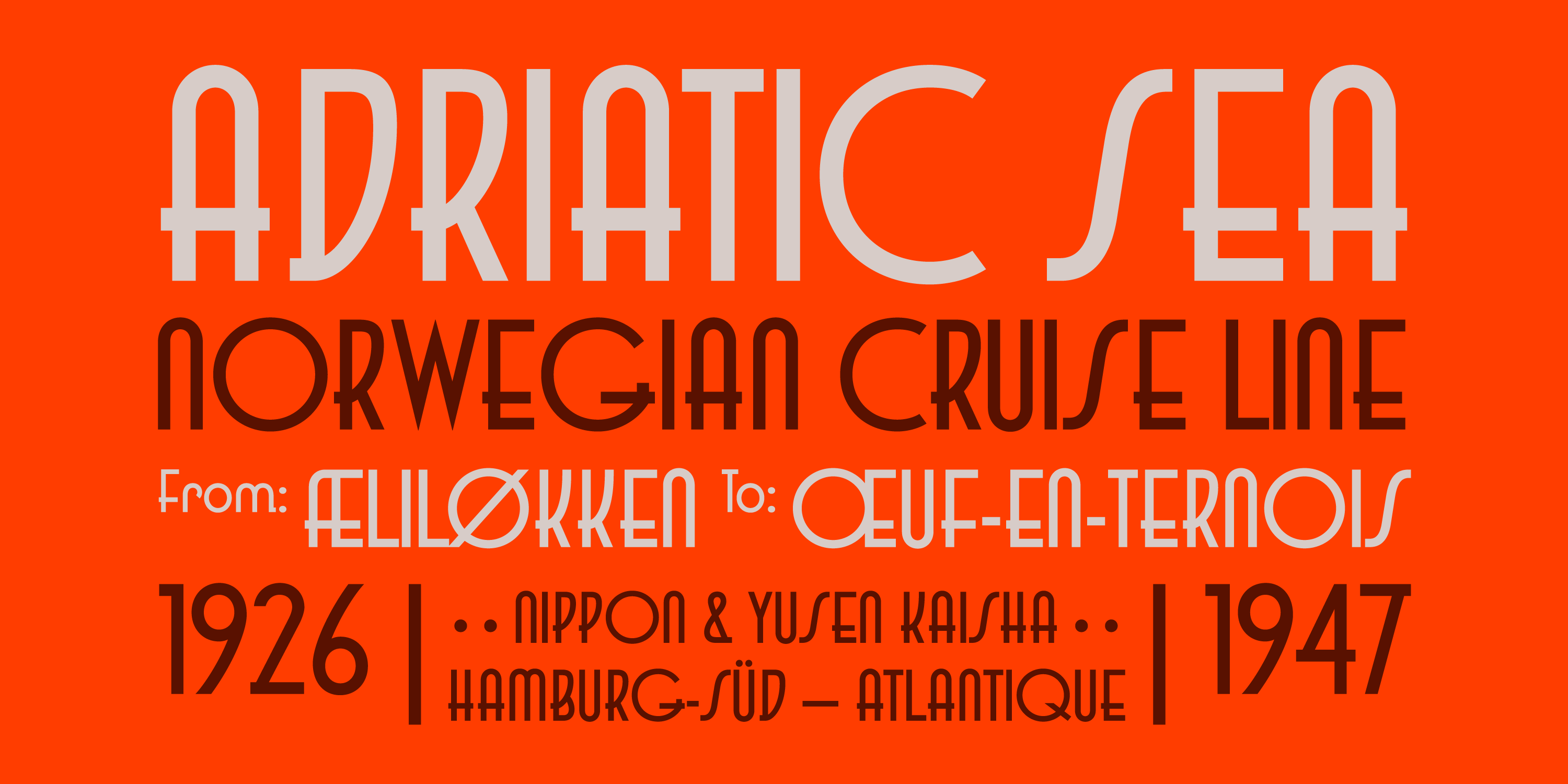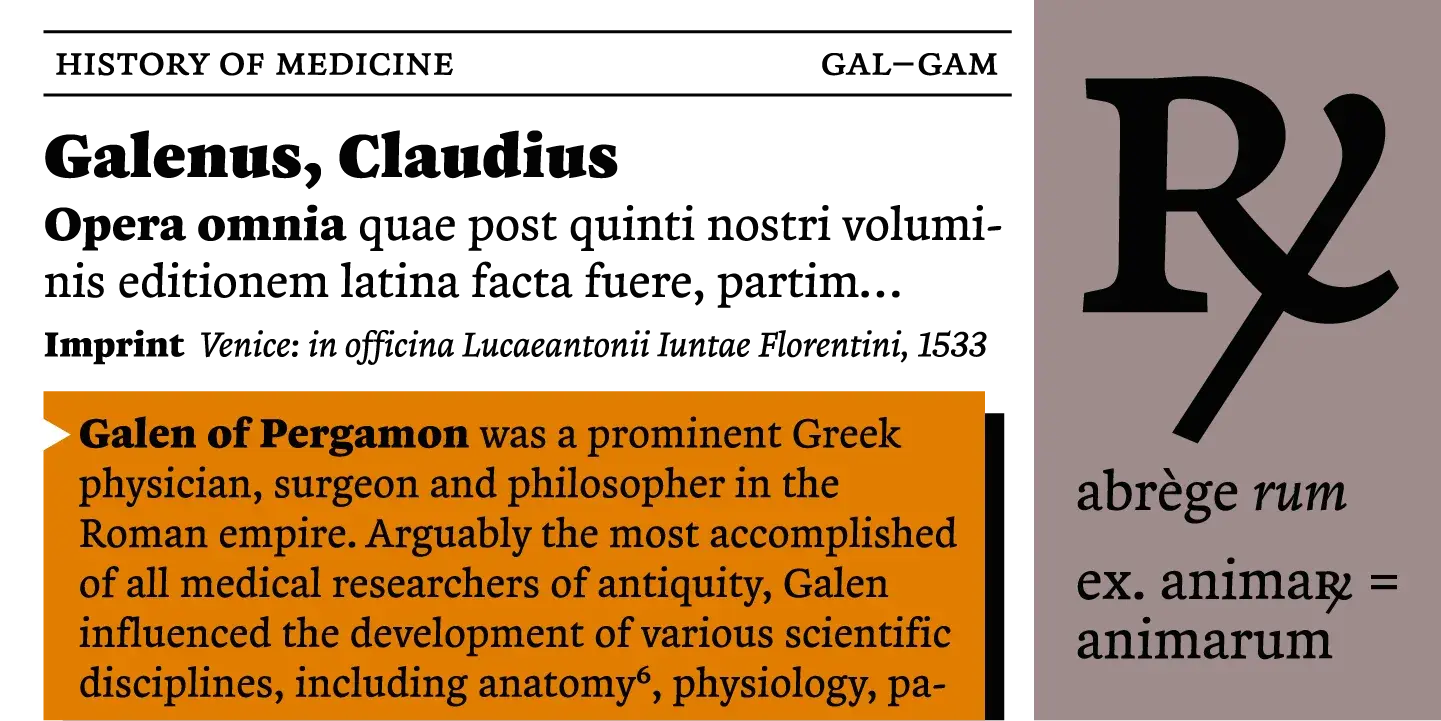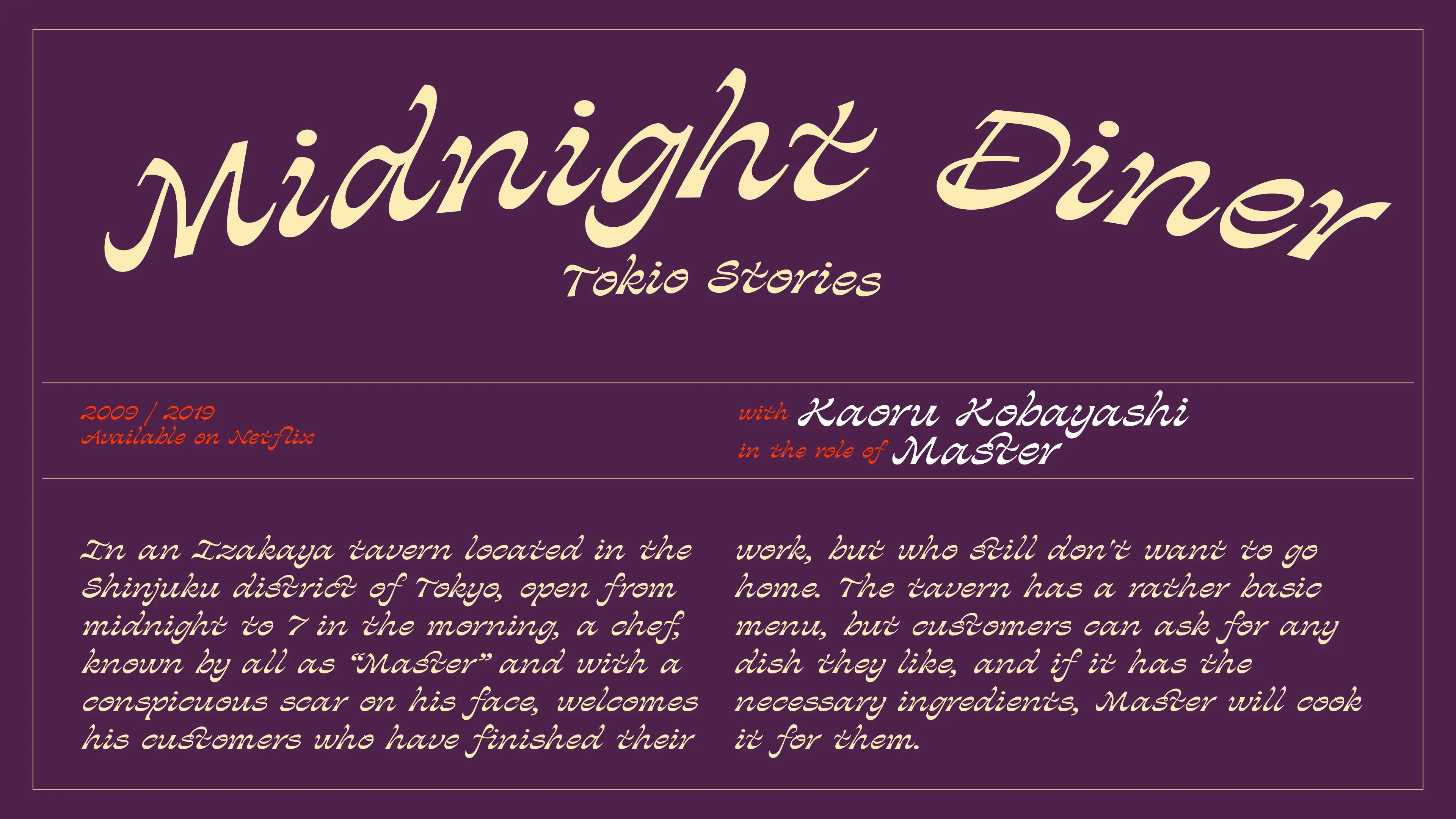
I’m delighted that CAST is joining Type Network. Let’s start with some quick introductions and each of your roles at CAST.
Valentina Casali: I’m a project manager and type designer. I’m happiest when I’m drawing script fonts, but I am also learning to do font engineering.
Giulio Galli: I'm mostly a type designer. Together with Riccardo I handle reviews for retail families, both internal and from outside designers.
Riccardo Olocco: I'm the president of CAST—mostly because I’m one of the elder members and a co-founder. I co-lead reviews with Giulio, pitch in on communications, and my main background is research in the history of type. I publish, and I try to mix research and contemporary practice.
Designing the Type Revivals, the book you wrote with Michele Patanè, is one of my favorites! For people new to CAST, what makes a co-op foundry different?
RO: The short version: we decide together. Not symbolically—really together. That means more meetings, more persuasion, more time… and a much stronger sense that the work is ours. There’s minimal hierarchy beyond basic bureaucracy and the review role Giulio and I fill. We vote when we must. It’s slower sometimes, but it changes your attitude toward the work in a good way.
GG: Also, most of us could work independently. The co-op lets us stitch different strengths into something bigger than any single person—without pretending we’re all the same.
CAST is an independent Italian digital type foundry, Cooperativa Anonima Servizi Tipografici, established as a cooperative in Bolzano, Italy.
How did each of you end up at CAST?
GG: I joined around 2017 or 2018 while studying in Urbino. Luciano was my teacher; I got pulled into a couple projects and… that was it. First real job, great people… I’m still here!
VC: I joined in summer 2023 after Typographics. I’d co-run Sunday Büro with my husband, doing editorial lettering for clients in Italy and the U.S. I wanted to get serious about type, especially scripts. CAST first needed help with accounting—glamorous!—then they slid a custom project into my lap. Riccardo reviewed, Daniele sat with me for hours to get me started on engineering. Watching things work in a font file is addictive.
RO: The seed was a short course at Politecnico di Milano in 2007. Many future CAST people crossed there. In 2012 a bunch of us met at a conference bar in Amsterdam and said, “Italy needs a foundry—let’s do it.” Half drifted, half stayed. We formed the co-op officially in 2013, and really hit our stride by 2015. We registered in Bolzano because my consultant there specializes in co-ops. (If you know Italian bureaucracy, you know why that matters.)
You offer custom families, spacing/kerning, scripting/automation, training—basically everything type-related. How do you route such a variety of projects through the foundry?
VC: Availability first—most of us also teach. We share timelines and the load (“six hours a day for two months” versus “two days a week for six”). Then skills and interest. One recent example: a client needed a script. Luciano brought it in; I drew the concept, Riccardo reviewed, Daniele built the OpenType features. In parallel, Giulio, Stefano, and Luciano were deep in a different custom project. It flexes project by project, but we have a big group to call on.
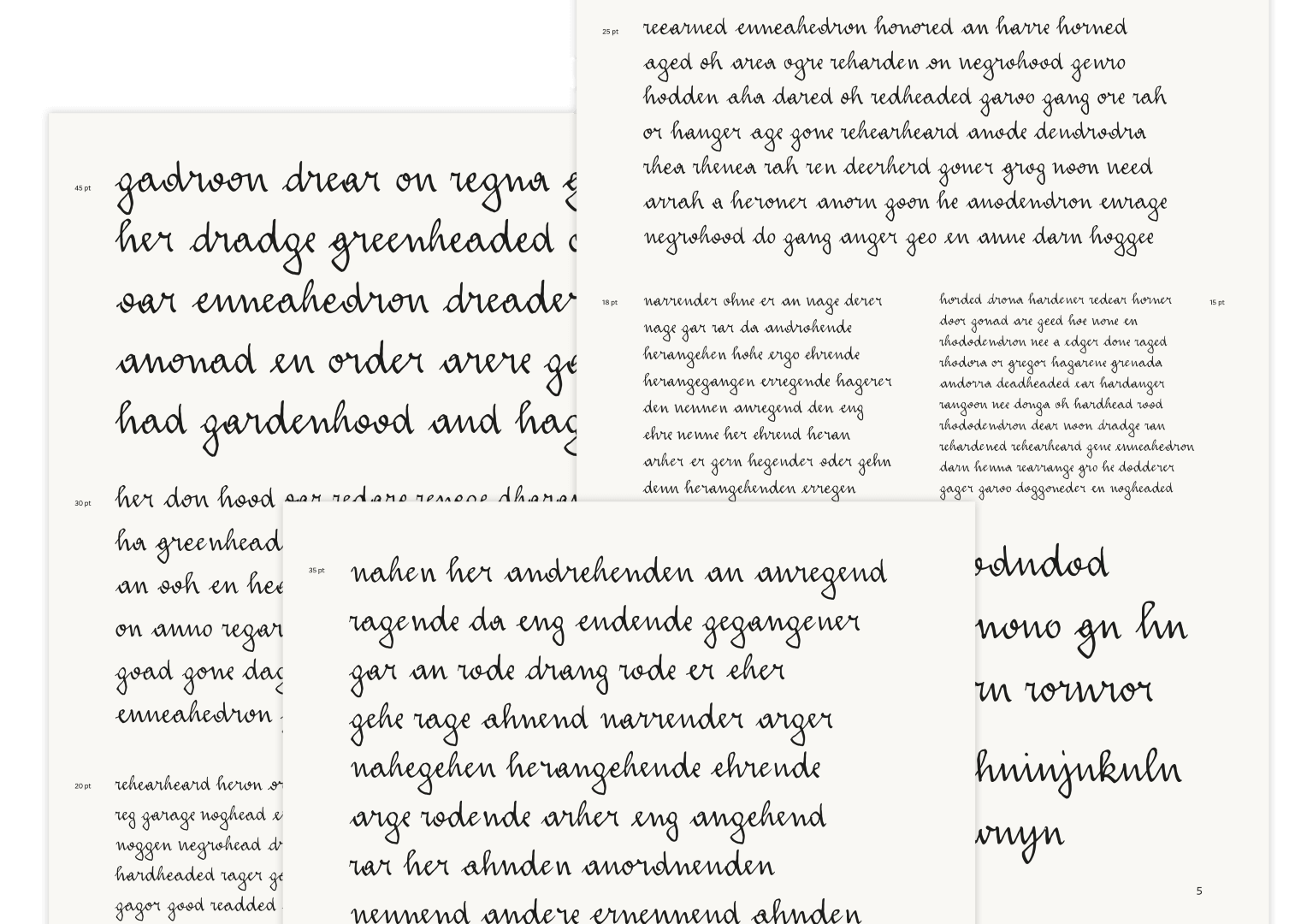
Loacker Script is a contemporary script font based on the informal hand of Alfons Loackerr, the founder of Loacker Company. The font follows an alternate character design, making extensive use of OpenType features to emulate handwriting.
Giulio, your talk at Typographics on evidence-based type design stuck with me. Is that a CAST policy or more of a toolkit you pull out when the client’s right for it?
GG: It’s a set of strategies, not a rigid methodology. We borrow from scientific practices—more structured questions, mapping expressive qualities to typographic variables, measuring feedback in a way that isn’t just vibes. How far we push it depends on the client. If the setup is there, we loop in folks like Luciano, reshape the team, and go a little deeper than the average creative chat. Some of these strategies are becoming part of CAST’s regular approach.
RO: When the experiments prove useful, we fold them into our normal workflow. The hardest part is explaining the value to designers without drowning them in technical detail.
You publish a lot of work by non-members. How do you manage outside designers?
RO: The pain is time. The fun part of a typeface lasts a month or two; then there are ten more months of work! Sometimes people realize that too late and step away. It’s not common, but it happens, and we’ve invested real hours by then. Usually designers approach us; we help tighten the concept and review along the way. Sometimes we invite someone we admire.
GG: The support level slides with experience. With newer designers we may help build the idea and review heavily; with veterans we’re light-touch. We’re beginning to formalize those tracks, but we still trust our sense of people.
VC: Engineering is especially time-hungry, so we’re capping outside-designer releases at about two per year—the Alfabeti Modernisti collection is the big exception because it’s a whole ecosystem. And fonts are never “done”—standards evolve, validators get pickier, customers find edge cases—so the limit protects the catalog we already have.
What are your thoughts on the “Italian type scene”?
GG: Labels like “national scene” flatten reality. Type is global, and scenes grow where people actually meet—notably schools and conferences. Italy could have more of those. Also, there’s a cultural reflex to sell “tradition” first. We respect history—many of us research it—but leaning on the stereotype can trap you.
RO: We respect the other Italian type designers, too. Many of them are friends. We have different approaches and could probably learn more from each other. We’re glad to see some of them represented at Type Network, as well.
Why join Type Network—and what are you most looking forward to?
GG: Honestly, it started as a human decision. We met, talked, liked each other’s way of working. Without that, it would’ve been just “one more option.”
VC: We want dialogue and reliable partners. CAST has people, skills, and a lot of ideas; we need a bigger platform to reach the right clients. Not to mention, your partners are some of the best in the industry; it doesn’t hurt to be counted among them.
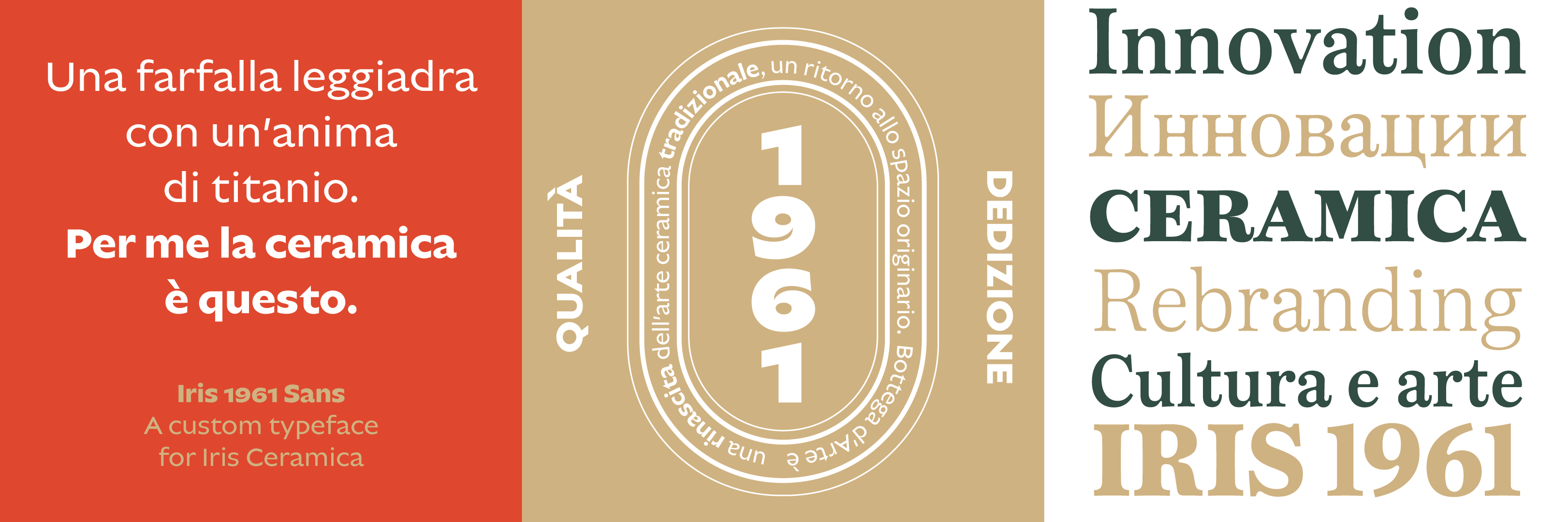
Custom Iris Sans 1961 and Iris Serif 1961—crafted by CAST Foundry to give Iris Ceramica’s rebrand a distinctive, timeless typographic voice.
Is there anything else we should be sure to include?
RO: Yes—our long project Modernisti wraps this autumn with 25 typefaces. It connects to a book by our friend Luca Lattuga, a printer who has been collecting type from closed shops. He suggested we create digital revivals from what he found and we couldn’t resist. The book is essentially a catalogue of those typefaces; alongside it we’re publishing Alfabeti Modernisti Type Specimens—similar format and cover, with fewer pages. It will be out by November.